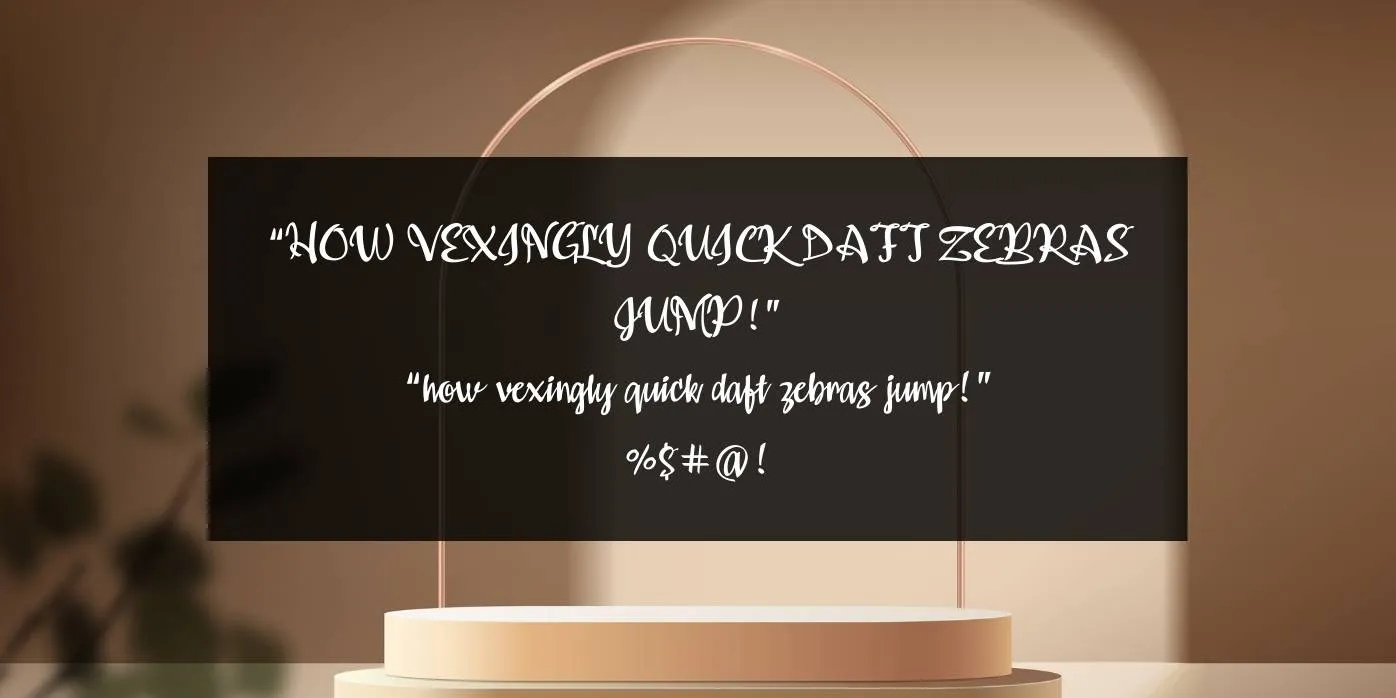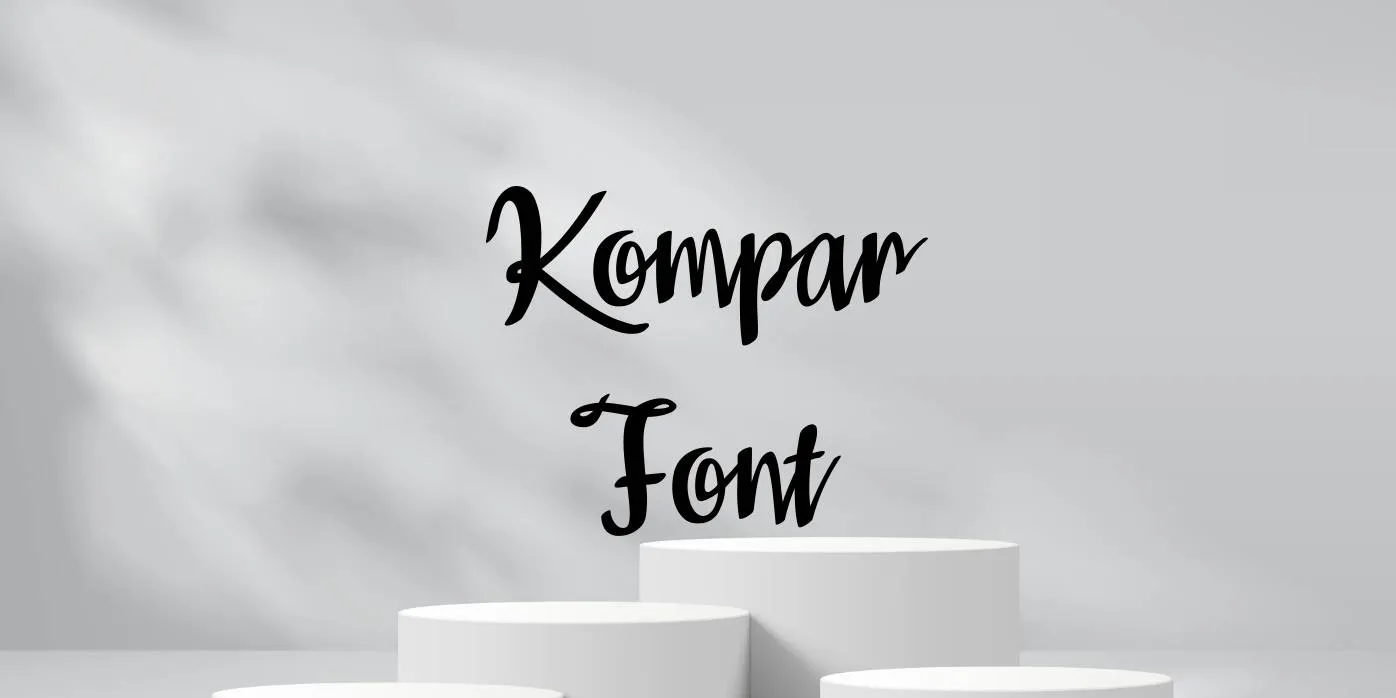
Kompar Font
Kompar font designed by Mans Greback. It belongs to the script family. The font is available in two styles, Regular and Bold. The character set of this font includes all the basics like uppercase, lowercase, and others.
Kompar Font is perfect for any creative project that needs a handwritten touch. You can also use the copy-and-paste function of this family. You can use december font which has the same style and characters as this one. Its glyphs are designed to be easily readable, even in small sizes.
This stunning font family includes 9 different weights, from Thin to Black. Each weight contains more than 400 glyphs, including a large set of alternates and ligatures. The generator tool of this typeface is suitable for different types of designs.